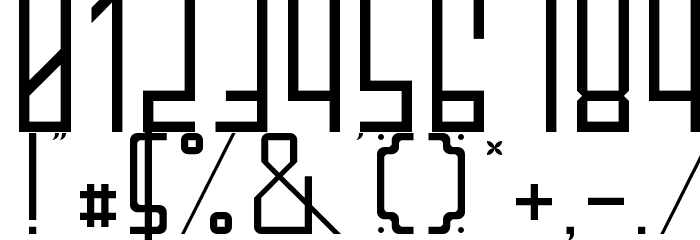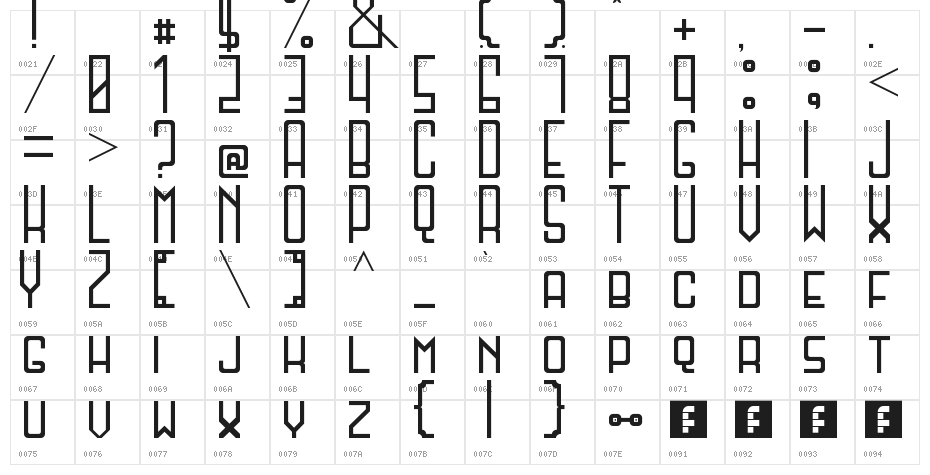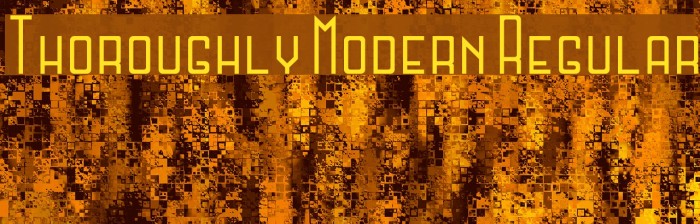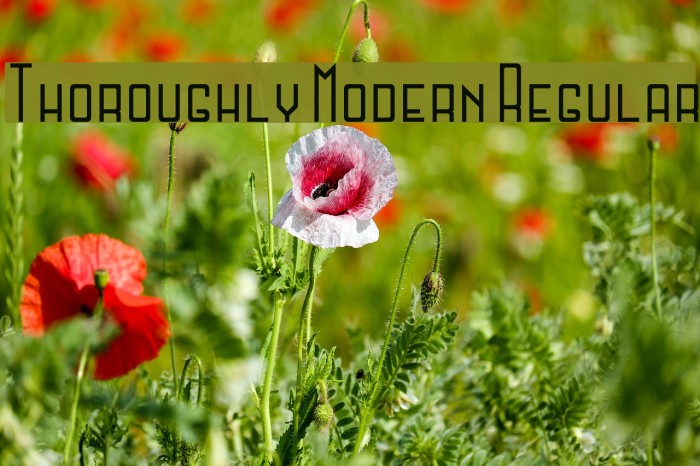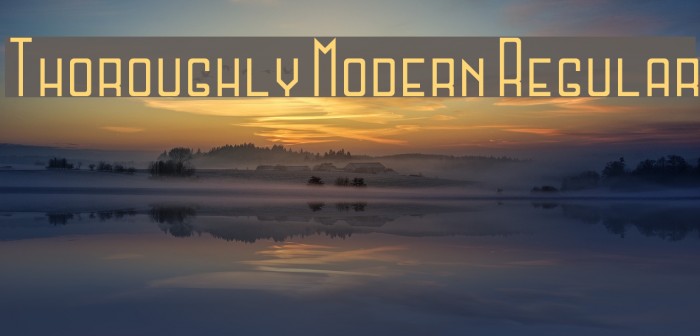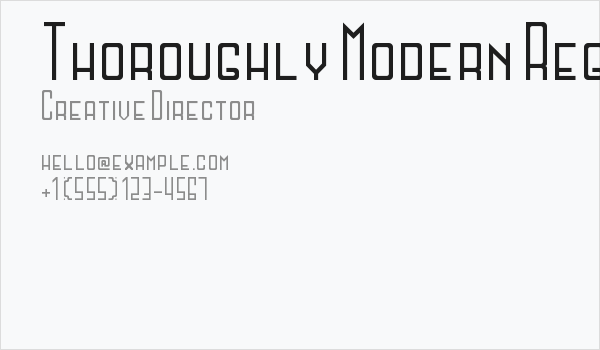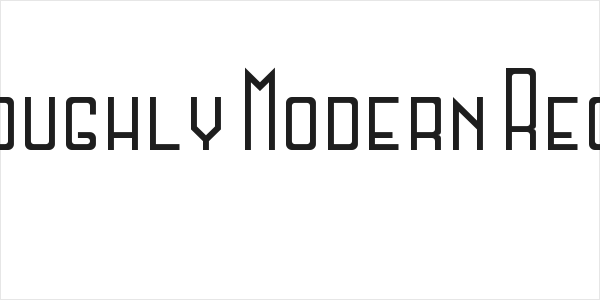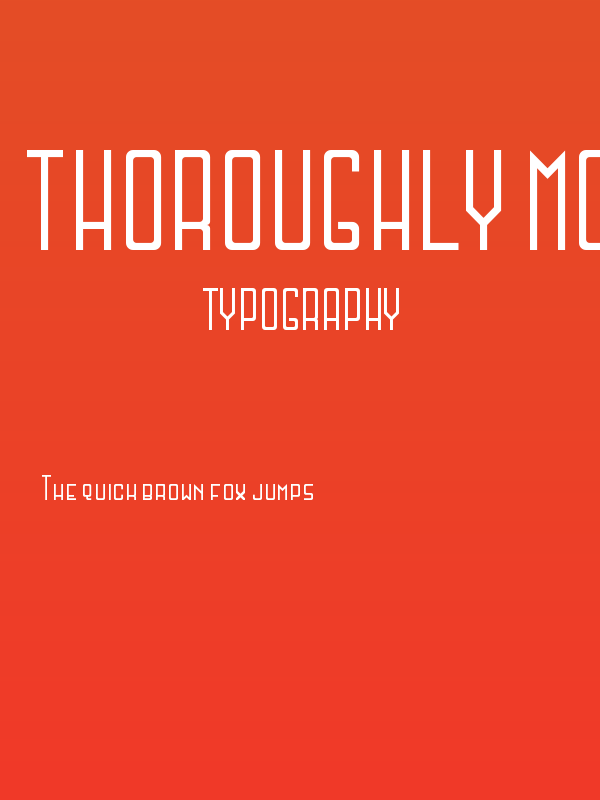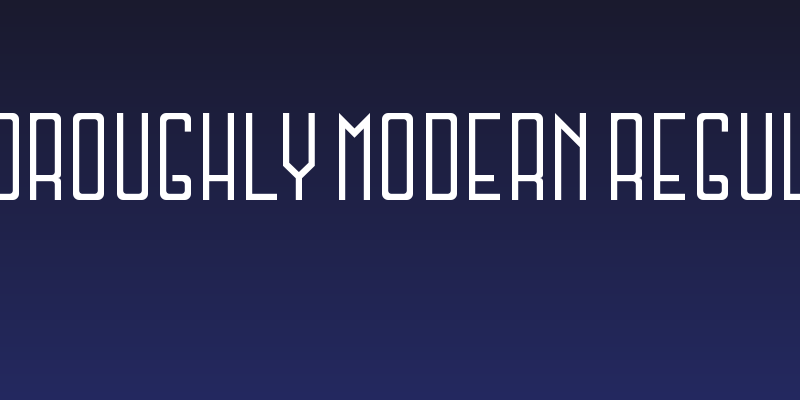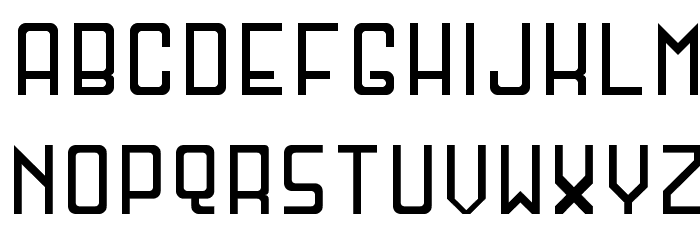
Thoroughly Modern Regular Font
Thoroughly Modern Regular Description
This font features a modern and geometric design, characterized by its clean lines and angular shapes. The uppercase letters are tall and narrow, with a consistent stroke width that gives a uniform appearance. The lowercase letters maintain the same geometric style, offering a cohesive look across both cases. The numerals are distinct and match the overall aesthetic, while the special characters are designed to complement the letterforms. This font's structure is both contemporary and versatile, making it suitable for a variety of design applications.